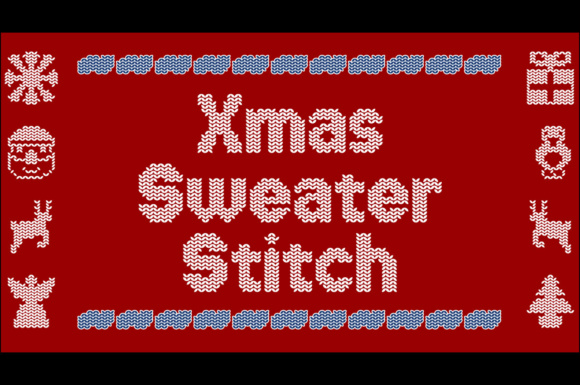
Introducing the Xmas Sweater Stitch Font, a captivating display font created by the talented team at Chequered Ink! Get ready to infuse your Christmas images with an extra dose of festive cheer and warmth. This font will transport you to a cozy winter wonderland, evoking memories of knitted woolly jumpers that you love unwrapping every Christmas.
Crafted with meticulous attention to detail, the Xmas Sweater Stitch Font perfectly replicates the intricate stitches and patterns found on your favorite woolen sweaters. Its playful and unique design will instantly captivate anyone who lays eyes on it, making it the perfect addition to your holiday-themed projects.
Whether you're creating personalized greeting cards, designing eye-catching social media posts, or adding a touch of Christmas magic to your website, this font is your go-to tool. With its wide range of characters and symbols, you'll have endless creative possibilities at your fingertips.
But why settle for ordinary holiday fonts when you can have a font that truly stands out? The Xmas Sweater Stitch Font will not only impress your audience, but it will also evoke a sense of nostalgia and joy. Imagine the smiles on your loved ones' faces when they receive a personalized message in this charming font.